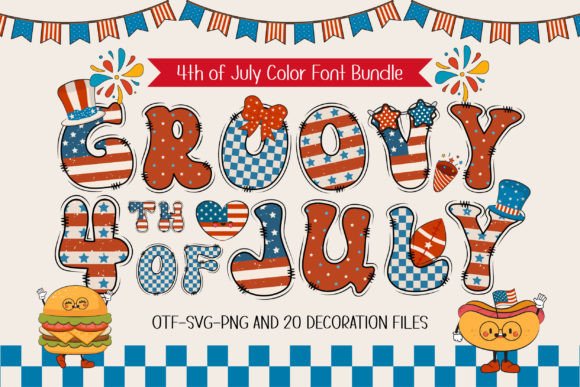
There’s something magical about Independence Day – the fireworks, family picnics, and unmistakable feeling of nostalgia in the summer air. If you’re a designer or DIY crafter, you know the power of the right font to capture that mood perfectly. Enter the Groovy 4th of July Font: a playful, retro-inspired color font that turns every project into a celebration of American spirit.
What Is the Groovy 4th of July Font?
Groovy 4th of July is not your average typeface – it’s a color font, sometimes called an OpenType-SVG font. What sets it apart is the combination of:
✅ Vibrant, full-color glyphs featuring the iconic stars-and-stripes motif
✅ Playful retro letter shapes inspired by 1970s design aesthetics
✅ Four unique font styles for creative flexibility
✅ 20 bonus clip art elements matching the font’s style – perfect for adding fun accents to your design
Unlike standard fonts that use solid color fills, color fonts let each letter show complex patterns and textures – in this case, the American flag’s red, white, and blue combined with groovy curves. The result? Lettering that instantly pops on everything from party banners to digital posts.
Why Designers & Crafters Love It
🎆 Perfectly Patriotic
Its built-in flag-inspired textures make it ideal for anything related to the 4th of July, Memorial Day, or Veterans Day.
✏️ Retro Meets Modern
The letterforms feel nostalgic yet fresh – ideal for adding a vintage vibe without looking outdated.
🎨 DIY Craft-Ready
The extra clip art makes it perfect for Cricut or Silhouette projects, sublimation prints, and personalized gifts.
🖼 Eye-Catching
Because it’s a color font, your text looks like custom lettering – no extra editing or layering needed.
Creative Uses for Groovy 4th of July Font
Whether you’re a professional designer or weekend crafter, the Groovy 4th of July Font opens a world of creative possibilities:
✨ Custom T-Shirts & Apparel
Add bold, retro-lettered slogans like “Stars & Stripes” or “Freedom Vibes” to shirts, tank tops, and hats.
🎉 Party Decorations
Create banners, cupcake toppers, table signs, and party invitations that perfectly match the holiday theme.
📲 Social Media Graphics
Design Instagram stories, Facebook posts, and Pinterest graphics that stand out in feeds.
☕ Sublimation Designs
Make mugs, tumblers, and tote bags featuring patriotic quotes or family names.
📦 Packaging & Labels
For small business owners selling seasonal goods, this font adds a playful, limited-edition touch.
🖼 Wall Art & Posters
Design retro-inspired prints for home décor or gifts.
Tips for Using Groovy 4th of July Font Effectively
🌟 Mix Styles – Combine the four included font styles to highlight words or phrases.
📏 Keep Size in Mind – Color fonts shine best at medium to large sizes where the details are visible.
🎨 Pair with Simple Fonts – Use a clean sans-serif like Montserrat or Open Sans for body text to keep your design balanced.
🎁 Add Clip Art – The bonus illustrations (like stars, fireworks, and flags) make your designs feel cohesive and custom-made.
🖨 Check Printing Settings – When using color fonts in print projects, export as high-resolution PNG or PDF to preserve colors and textures.
Alternatives to Groovy 4th of July Font
If you want a different style or need a simpler option, try:
Stars & Stripes Font – bold letters filled with flag textures.
Fireworks Script – playful script with fireworks textures.
Retro Americana – solid retro block letters (works on older design tools too).
Final Thoughts: Celebrate in Style
The Groovy 4th of July Font is more than a typeface – it’s a ready-made design toolkit full of retro charm and patriotic pride. Perfect for crafters, small business owners, and graphic designers, it turns ordinary holiday projects into eye-catching, nostalgic works of art.